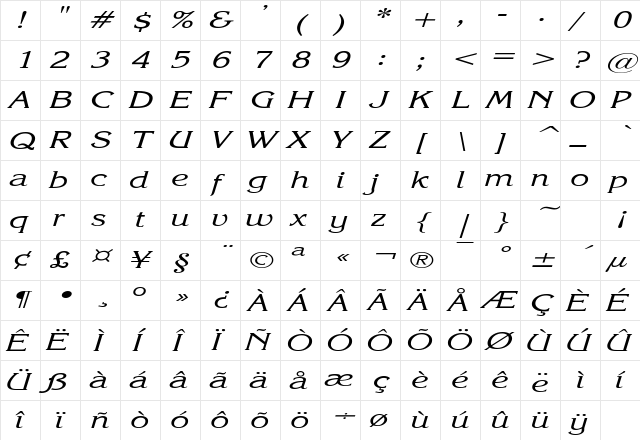
KatrinaExtended Italic
Design Context for KatrinaExtended Typeface
KatrinaExtended is a composed and adaptable typeface that performs quietly and consistently across a wide range of design contexts. The dynamic lean of this cut emphasises speed and emphasis in any layout.
Pro Tip: Try KatrinaExtended for annotation and caption copy alongside an upright companion — the contrast in angle creates a dynamic but ordered typographic system.